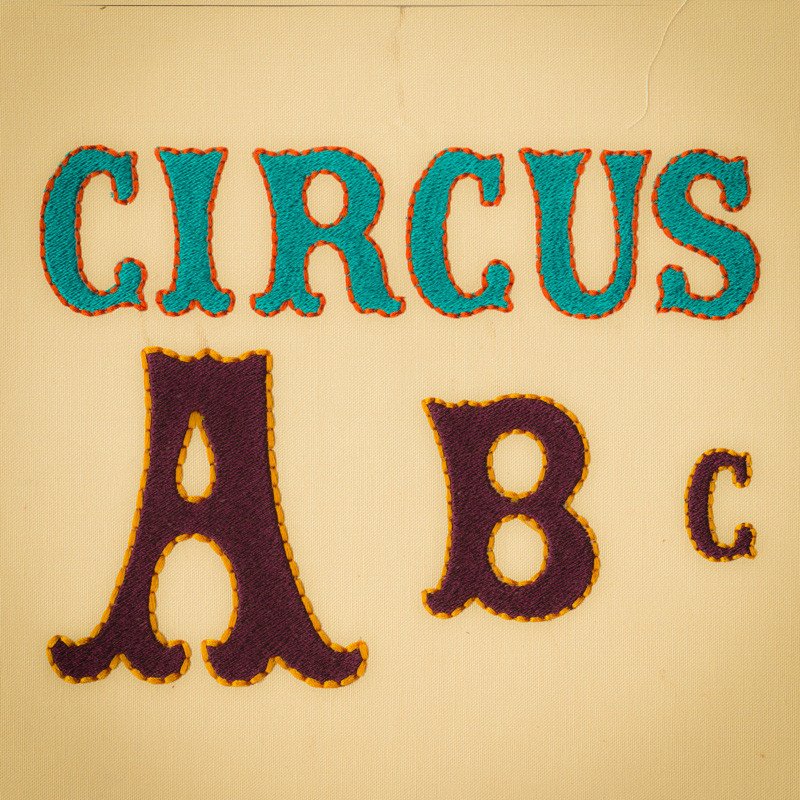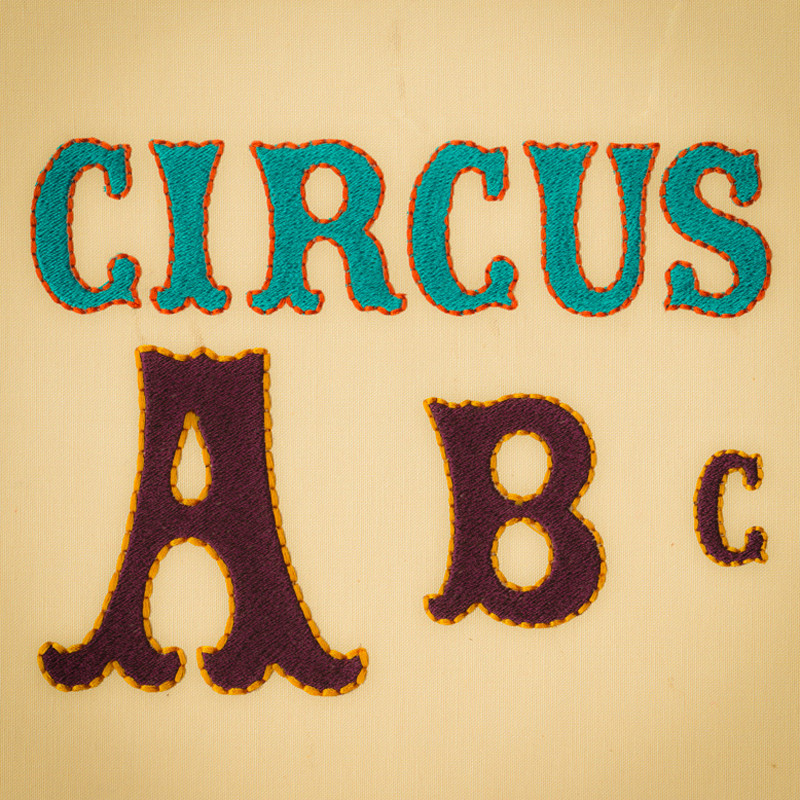
794 Circus Fill & Floss Font
794 Circus Fill & Floss Font comes in 1", 1.5", 2", 2.5", 3", 3.5" & 4" heights based on the capital "A". Includes uppercase letters only (NO lowercase, number or punctuation marks in this font). All characters are finished with fill stitch centers and Floss Stitch outlines in 2 color set up.